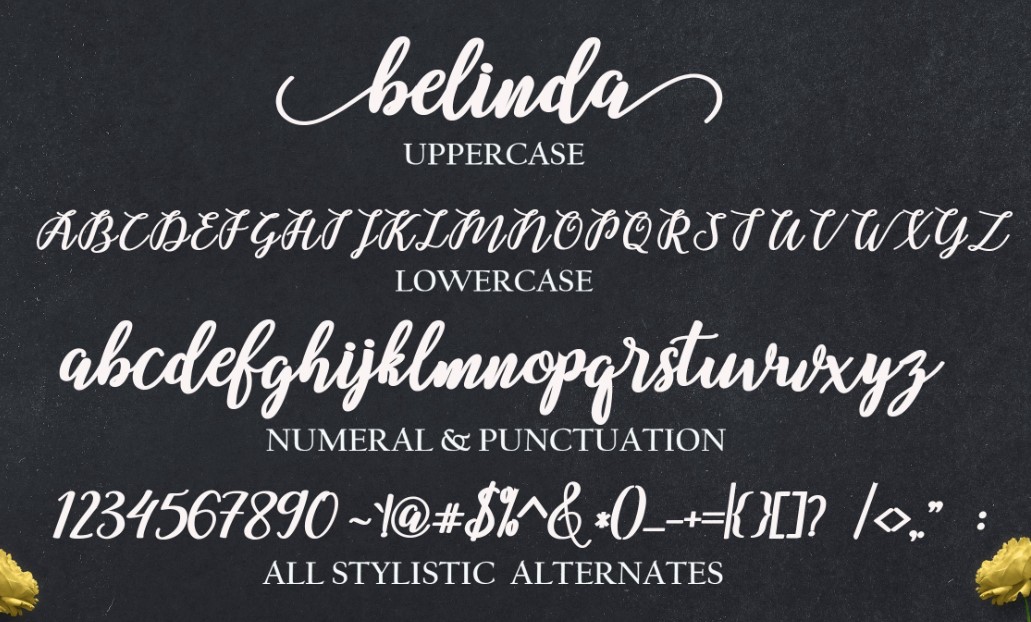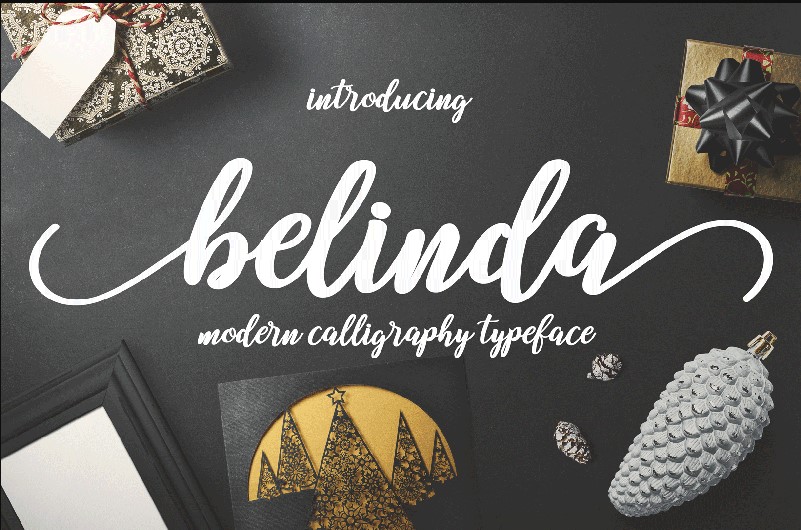
Belinda Script Font
Belinda Script Font is widely popular for its Bold and Italic function. This typeface is present inside the Google fonts and it is available for free. It changed into commissioned the usage of adobe fonts for its internet font library, this moreover strategies that the only’s style dressmaker fonts are to be had for gratis. Each specific the rustic font is a completely unique condensed font that capabilities an antique format.
The font is likewise to be had in multiple weight, and it‚Äôs tremendous for designing trademarks, badges, and labels. Belinda Script Font Free The typeface moreover comes with exchange characters and in someone’s weight as properly. watercolor font is one of the maximum precise fonts on our list. Neon lighting fixtures everyday font is a format derived from several antique faces from the English layout making facility.
But, the magistral font is a sans-serif advocated with the beneficial aid of the real typefaces.